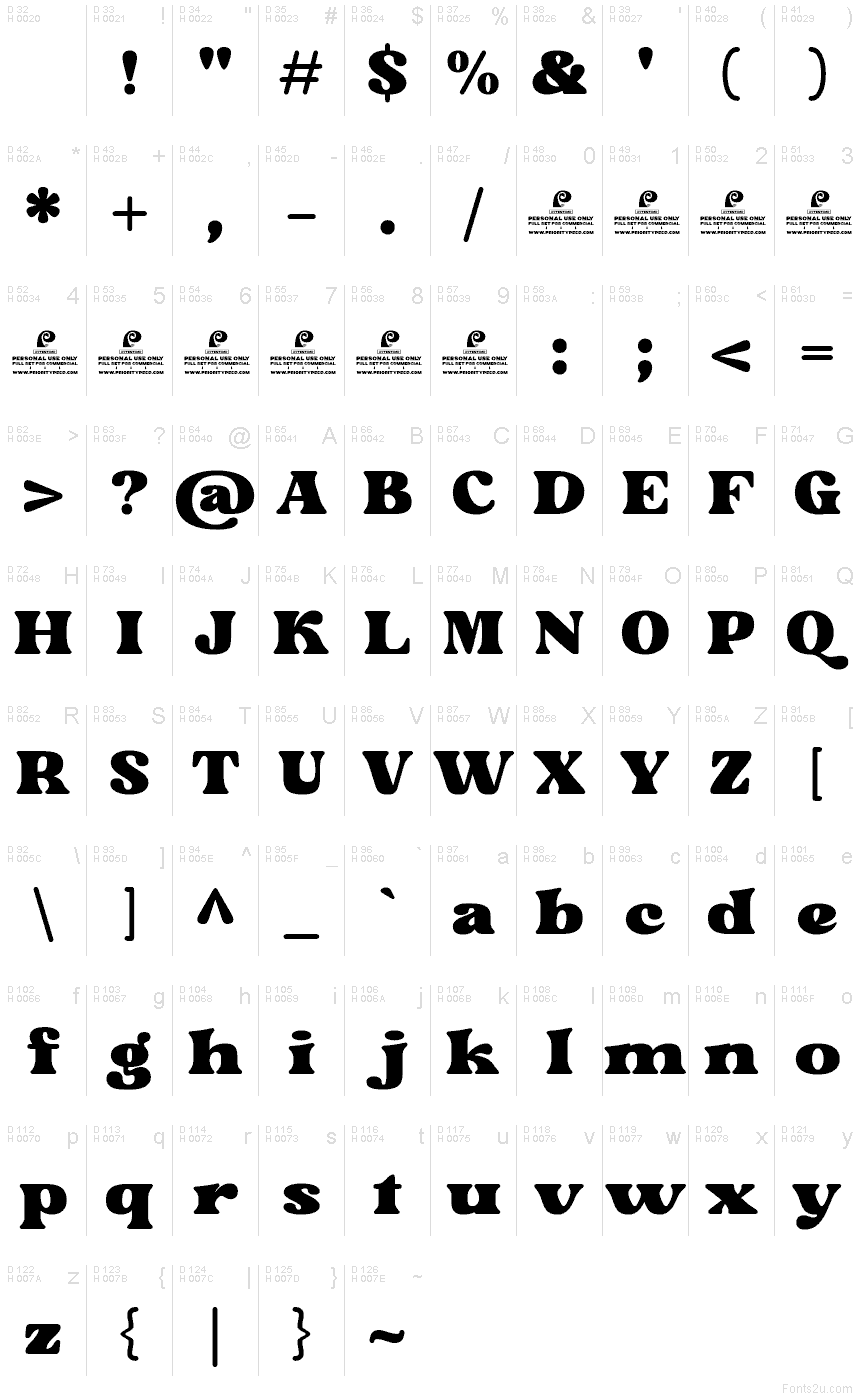
Bread Flour DEMO
Bread Flour font by Prioritype Co is a free bold groovy display font. Built around plush, doughy curves and big teardrop serifs, it swells like bread fresh from the oven—chunky, happy, and a little mischievous. The rhythm is tight and springy, with inky, rounded counters that keep heavy strokes from feeling stiff, giving headlines a warm, retro thump without losing clarity.
Using Bread Flour, your titles snap with 70s soul—great for bakery branding, food packaging, event posters, album art, merch, and playful social graphics. This free font wants to be set large; add a hair of tracking to let those bulbous forms breathe. Pair with a clean, light geometric sans for copy to keep the vibe fun yet readable.